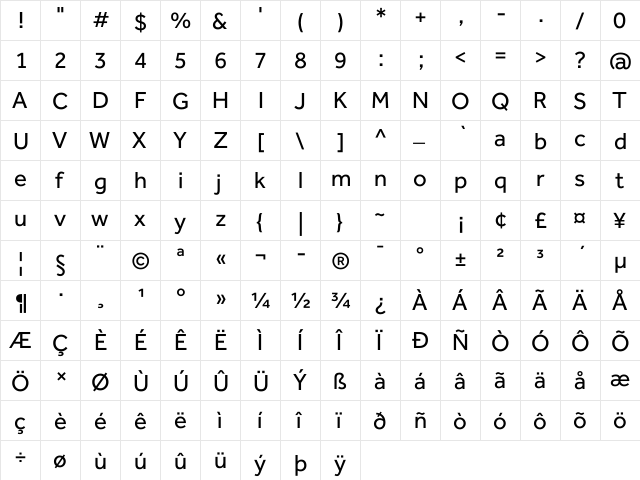
Effra Regular
| Foundry | Jonas Schudel and Dalton Maag Ltd. |
| Designer | Jonas Schudel |
Design Context for Effra Typeface
Effra is a composed and adaptable typeface that performs quietly and consistently across a wide range of design contexts.